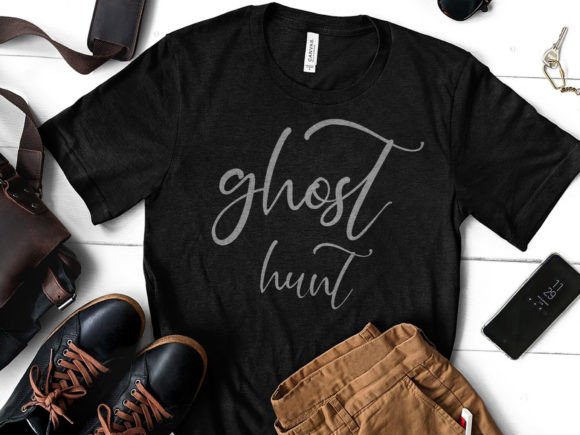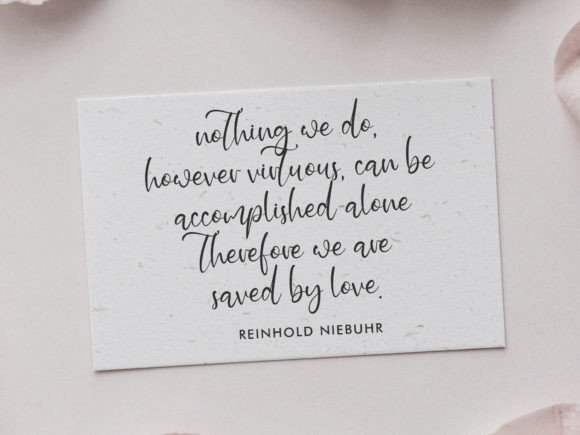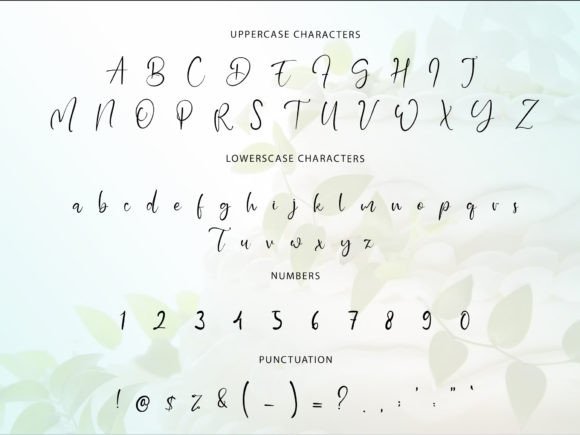
Introduction to Kalamaer Font
Kalamaer is a stylish handwritten script font that embodies a sense of exploration and creativity.
Its fluid, dynamic strokes, and casual elegance make it ideal for travel blogs, outdoor branding, and adventurous editorial projects Unleash your wanderlust with Kalamaer, where every word is a journey.